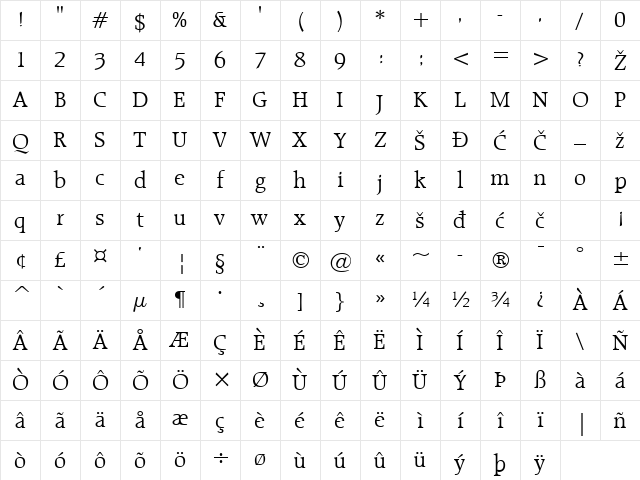
RaleighLight Regular
RaleighLight Family
Design Context for RaleighLight
RaleighLight is a composed and adaptable typeface that performs quietly and consistently across a wide range of design contexts. Its slender proportions lend an understated elegance to any composition.